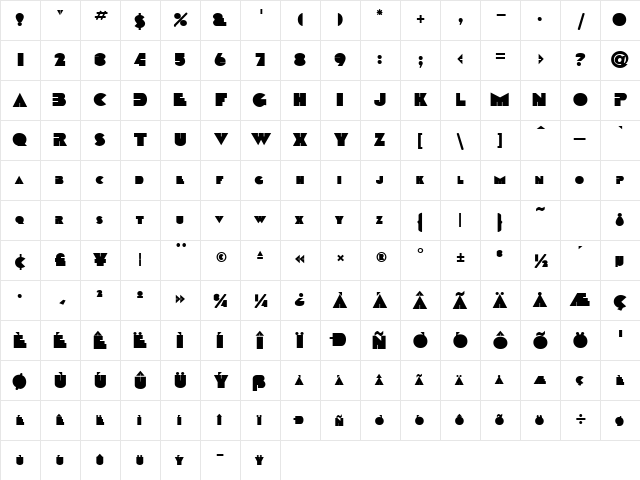
AnimalSilenceText122 Bold Free Font
AnimalSilenceText122 Bold
AnimalSilenceText122 Family
Complete AnimalSilenceText122 Bold glyph index. Displaying only characters natively supported by AnimalSilenceText122 Bold font.
Design Context for AnimalSilenceText122
AnimalSilenceText122 is a composed and adaptable typeface that performs quietly and consistently across a wide range of design contexts. Its bold stroke weight gives it real presence on the page.